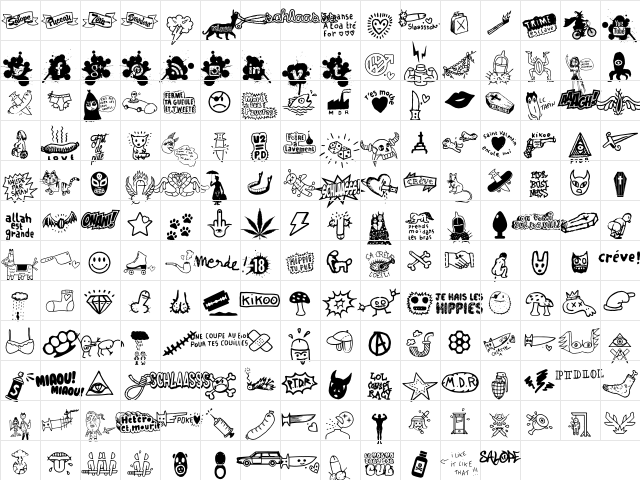
WC Schlaasss normal
| Foundry | WC Fonts |
| Designer | WC Fonts |
Design Context for WC Schlaasss Typeface
WC Schlaasss is a composed and adaptable typeface that performs quietly and consistently across a wide range of design contexts.